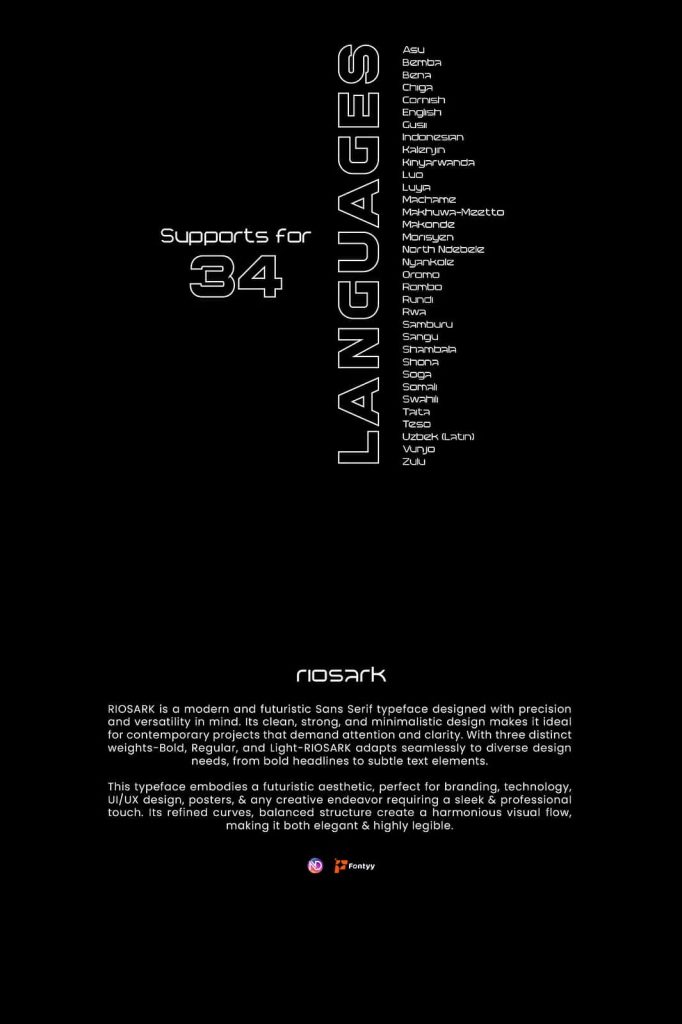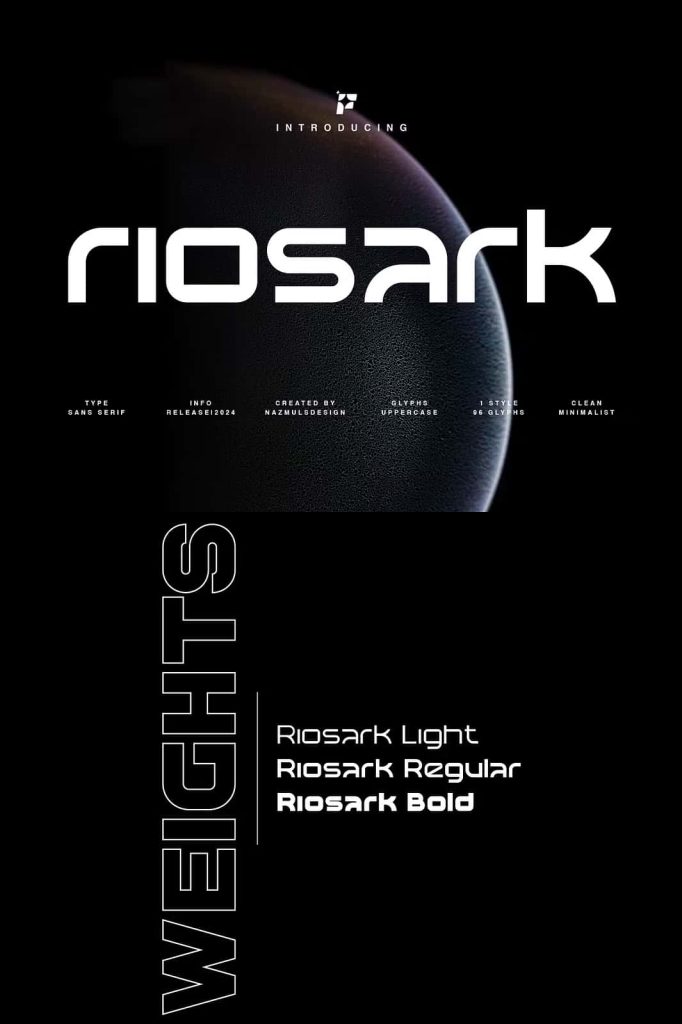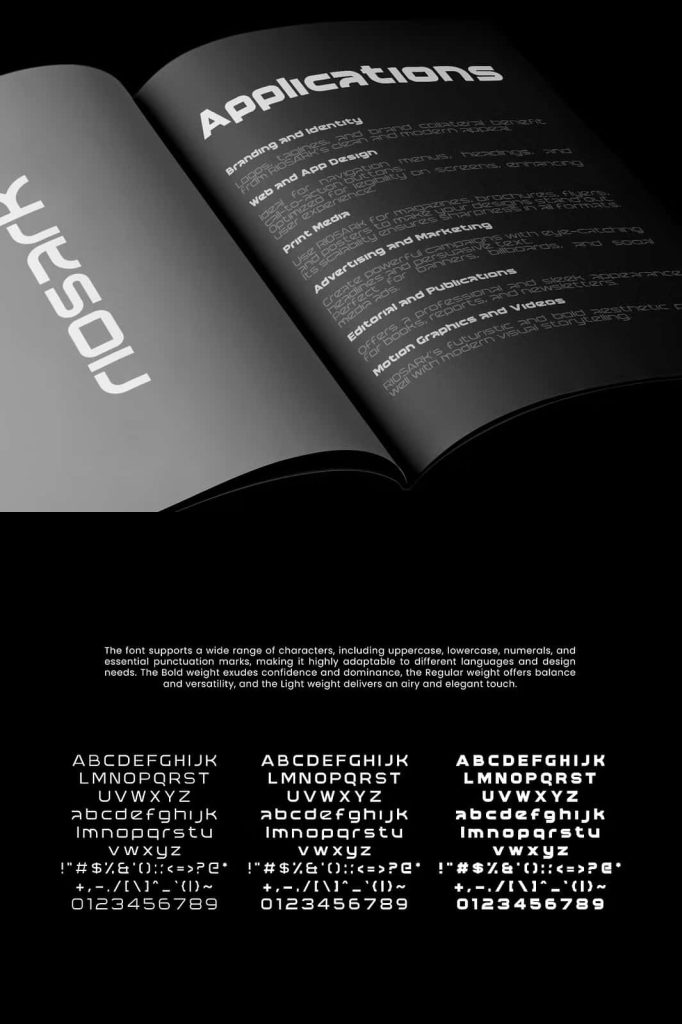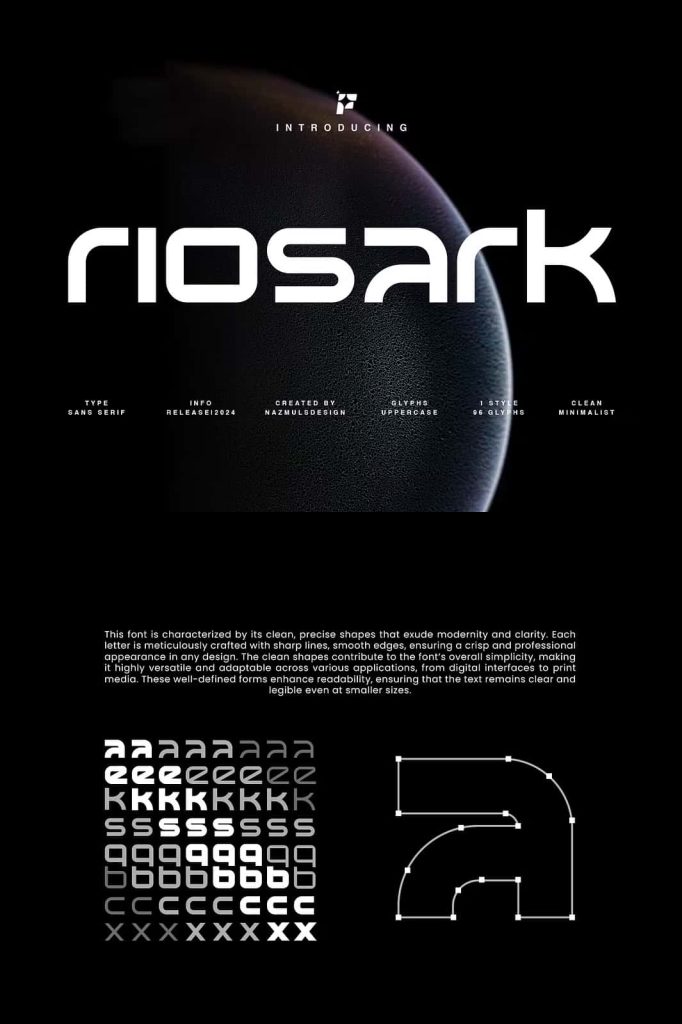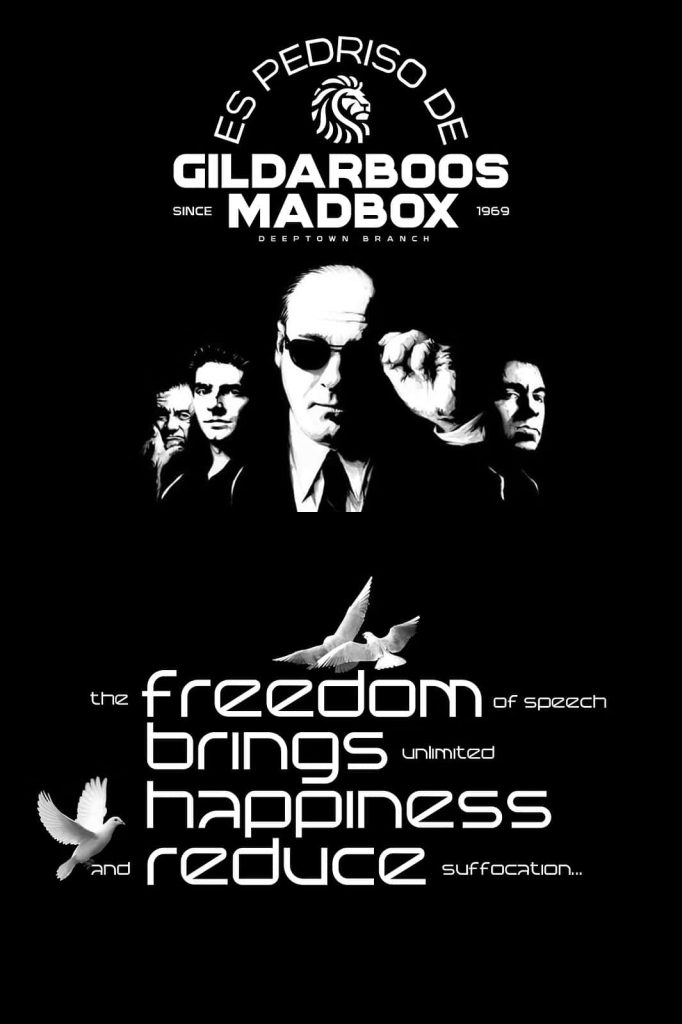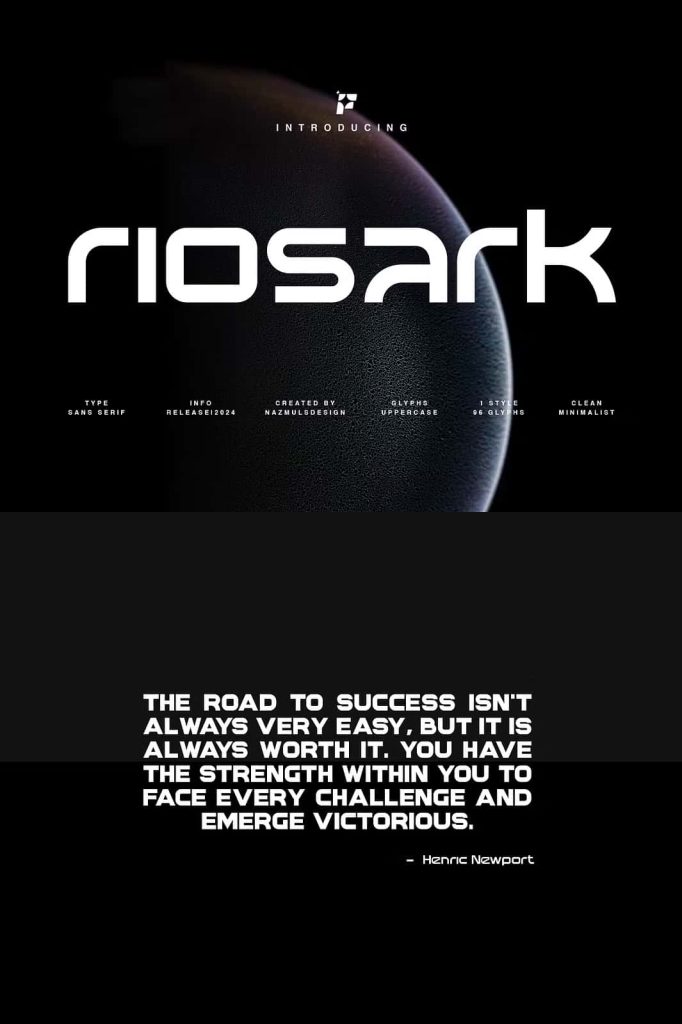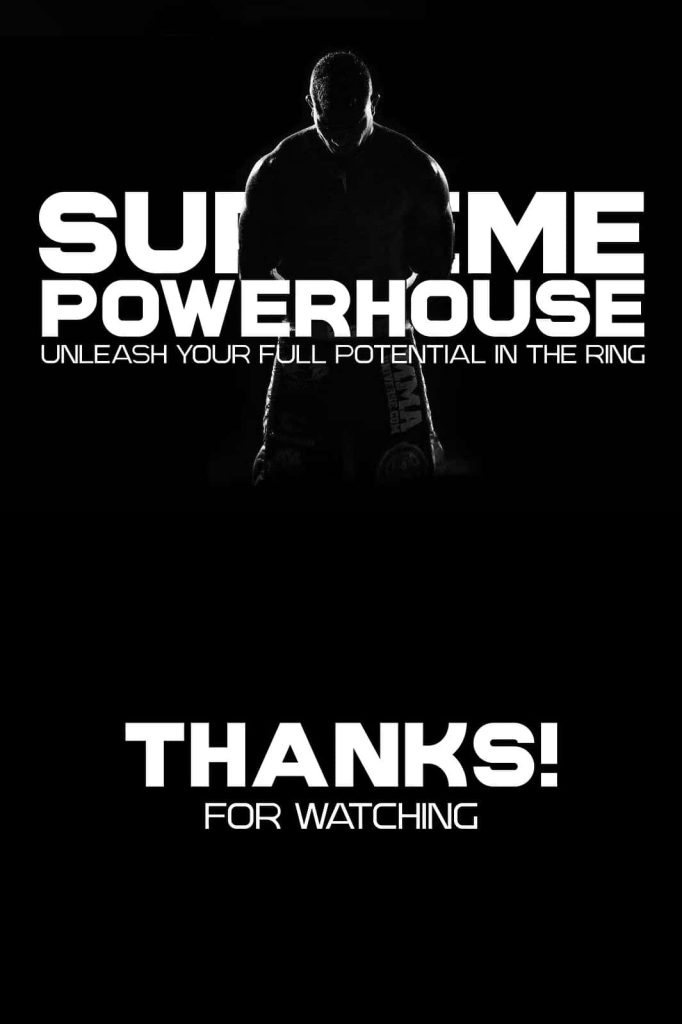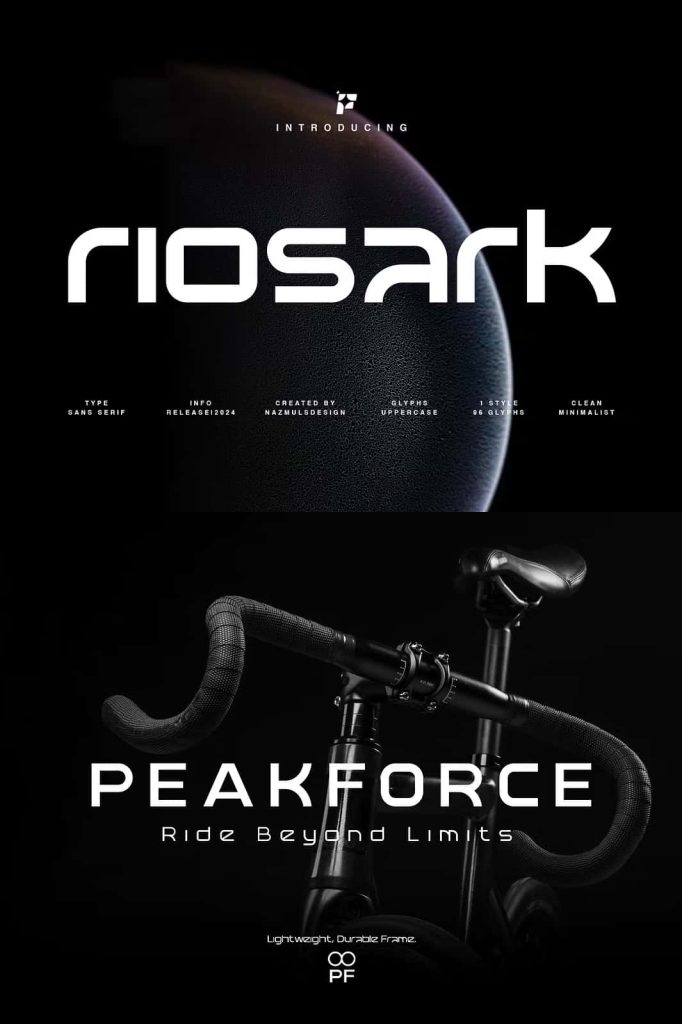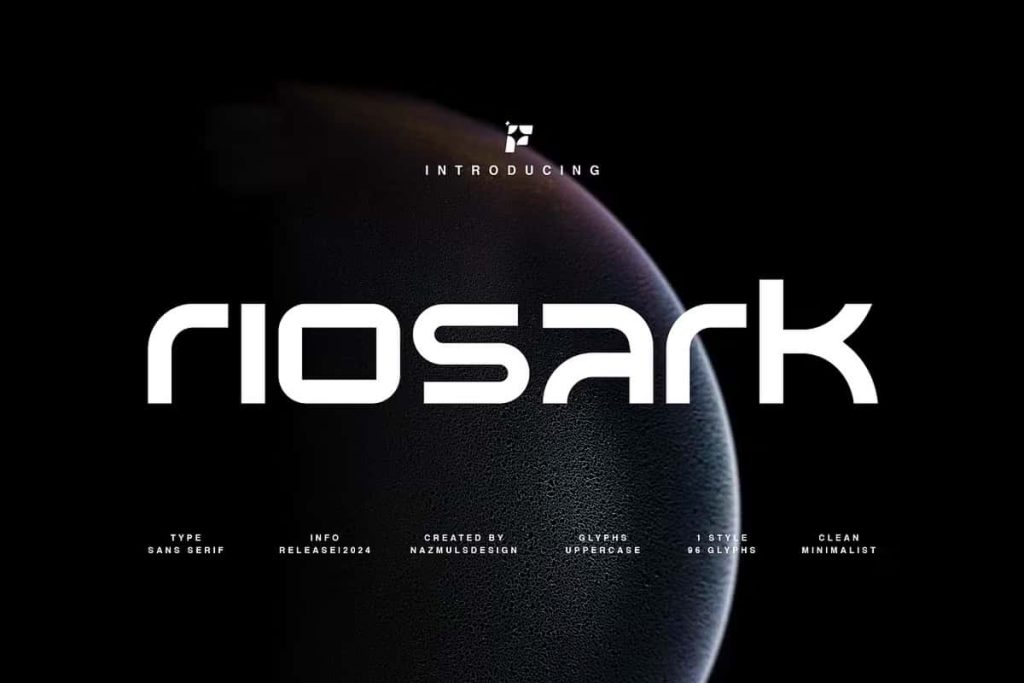
Riosark | Sans Serif Typeface
RIOSARK Futuristic Sans Serif Typeface – A Modern Font for Innovative and Contemporary Design
RIOSARK is a modern and futuristic sans serif typeface created for designers who demand clarity, versatility, and visual impact. Built with precision and attention to detail, this typeface delivers a clean and sophisticated aesthetic that works exceptionally well across a wide range of contemporary design projects. Its balanced geometry, strong structure, and minimalistic appearance allow designers to create professional visual identities that feel innovative, confident, and forward-thinking.
Designed to adapt to modern creative environments, RIOSARK offers three carefully crafted weights: Bold, Regular, and Light. This flexibility enables designers to establish clear visual hierarchies while maintaining consistency throughout branding systems, digital interfaces, advertising campaigns, editorial layouts, and marketing materials.
Whether you are building a technology brand, developing a futuristic user interface, creating a bold logo, or designing impactful promotional content, RIOSARK provides the tools needed to communicate with confidence and precision.
A Modern Sans Serif Typeface Built for the Future
RIOSARK reflects the principles of modern design through its clean lines, geometric balance, and minimalist approach. Every character has been carefully developed to achieve maximum readability while maintaining a strong visual identity. The result is a typeface that feels contemporary and innovative without sacrificing functionality.
The font’s streamlined appearance allows content to remain clear and effective across both digital and print environments. Its futuristic styling makes it particularly suitable for brands and projects that want to communicate innovation, technology, progress, and professionalism.
By combining simplicity with distinctive character, RIOSARK helps designers create memorable visual experiences that resonate with modern audiences.
Clean Design with Strong Visual Presence
One of RIOSARK’s greatest strengths is its ability to create impact through simplicity. The typeface avoids unnecessary decorative elements and instead focuses on strong shapes, balanced proportions, and clean typography. This design philosophy allows the font to command attention while maintaining a refined and professional appearance.
Its strong letterforms make headlines and titles highly effective, while the minimalist structure ensures excellent readability across various media formats. Whether used on large-scale displays or smaller text applications, RIOSARK consistently delivers clarity and visual consistency.
The font’s modern personality makes it ideal for projects that require a sleek, contemporary look capable of standing out in competitive markets.
Key Features of RIOSARK
• Modern futuristic sans serif design
• Clean and minimalistic letterforms
• Strong geometric structure
• Available in Bold, Regular, and Light weights
• Excellent readability across digital and print media
• Professional and versatile appearance
• Suitable for branding, technology, and corporate projects
Three Versatile Weights for Maximum Flexibility
RIOSARK includes three distinct font weights that allow designers to build comprehensive typography systems with ease. Each weight serves a specific purpose while maintaining visual harmony across the entire font family.
The Bold weight creates strong headlines and attention-grabbing titles that immediately attract viewers. It works exceptionally well for branding, advertising, website banners, and impactful messaging.
The Regular weight provides excellent balance and versatility, making it ideal for body text, subheadings, and general communication materials. It delivers readability without losing the font’s modern character.
The Light weight introduces elegance and sophistication, making it suitable for premium branding, minimalist layouts, user interfaces, and refined design compositions. Together, these weights provide designers with the flexibility needed to tackle diverse creative challenges.
Perfect for Technology and Innovation Brands
Modern technology companies require typography that reflects innovation, reliability, and progress. RIOSARK delivers these qualities through its futuristic appearance and clean design language. The typeface helps technology brands establish a professional visual identity that communicates expertise and modern thinking.
Software companies, startups, digital agencies, artificial intelligence businesses, engineering firms, and technology service providers can use RIOSARK to strengthen their branding and enhance customer perception.
Its futuristic aesthetic aligns naturally with industries focused on innovation, making it an excellent choice for businesses seeking a competitive and contemporary image.
Create Powerful Logos and Brand Identities
For designers seeking a contemporary sans serif typeface that combines precision, versatility, and modern aesthetics, RIOSARK offers an outstanding solution. Its ability to support both bold creative concepts and functional communication makes it a valuable addition to any professional font library.